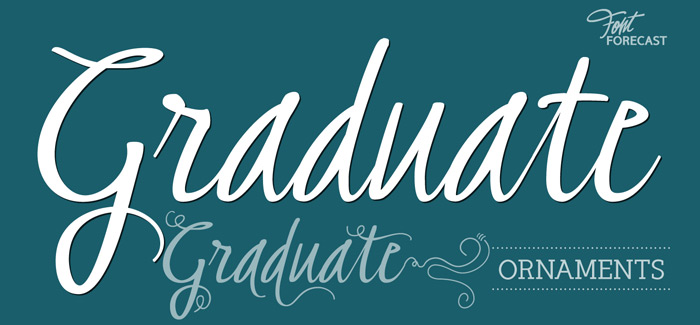
Graduate Script font
Graduate Script font is a contemporary calligraphic script. With over 825 glyphs Graduate Script can be dressed up or down, to enliven its style.
You can add curles to beginning and end of any lowercase letter, or even in between them. Alternates for both upper and lowercase, aswel as ligatures for double letters are included too. OpenType features such as five numeral styles, fractions and both standard and discretionary ligatures, make Graduate Script a well equipped font.
Graduate Ornaments has over 300 glyphs and expands the design possibilities of Graduate Script even further. It offers additional ornaments and curles to add to lowercase letters, frames, automated borders that can be accessed by the keyboard and a lot more fun glyphs to work with. On top of that there are catchwords in different styles. Not finding the catchword you’re looking for? Just create your own! A full set of capitals, including roman accented caps, currency, numerals and punctuation is part of Graduate Ornaments. Designed to fit the same frames that are being used for the different catchword-styles, so you can easily integrate custom text with the existing catchwords.